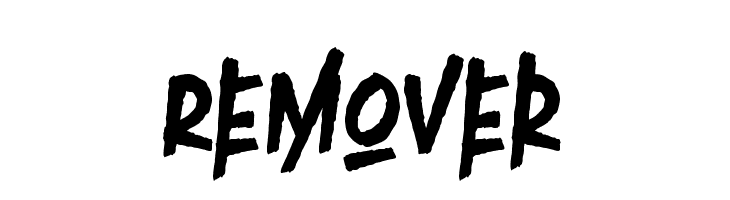
A bold, angular font with a futuristic, geometric design.
A sleek, modern, and italicized font with an extra light weight and geometric design.
A playful, flowing font with seamless connections and whimsical loops.
A bold, textured font with a 3D shadow effect, perfect for impactful designs.
A dynamic and elegant script font with flowing cursive letterforms.
A hollow, inverse font with a futuristic, geometric style.
A bold, flowing script font with elegant curves and a handwritten style.
A bold, brush-stroke font with a rough, textured appearance.
A decorative monogram font with uppercase letters encased in festive wreath designs.
A playful, cursive-like script font with interconnected letters and moderate stroke thickness.